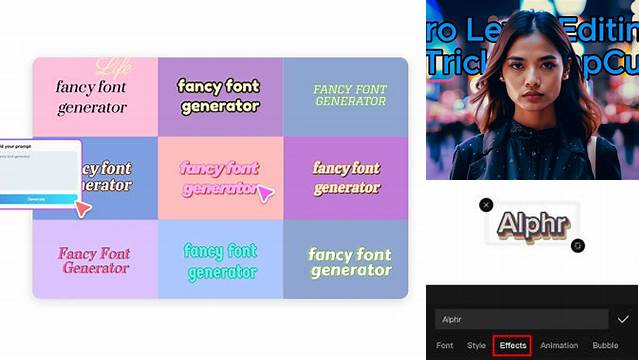
Best Fonts For CapCut: Elevate Your Edits
Hey guys! Ever wondered how some video edits on platforms like TikTok and Instagram Reels just pop? A huge part of it is the fonts they use. Choosing the right font can dramatically elevate your CapCut edits, making them more engaging, professional, and reflective of your unique style. But with so many options out there, how do you pick the perfect font? Don't worry, we've got you covered! This comprehensive guide will dive deep into the world of CapCut fonts, exploring everything from built-in options to external resources, and even offering tips on how to choose the best fonts for your specific video content.
Understanding the Importance of Font Choice in Video Editing
Font choice in video editing is more than just picking something that looks pretty; it's a crucial element of visual communication. The fonts you use can convey emotion, personality, and even the overall tone of your video. Think about it: a playful, handwritten font might be perfect for a vlog about a fun day out, but it would feel completely out of place in a serious documentary. Similarly, a sleek and modern sans-serif font could be ideal for a tech review, while a classic serif font might be better suited for a cinematic short film. Choosing the right font enhances the message you're trying to get across and makes your content more appealing to your audience.
Consider these factors when selecting fonts for your CapCut projects. First, legibility is key. No matter how stylish a font looks, if your viewers can't easily read it, you're doing your video a disservice. Opt for fonts that are clear and easy to read, even on smaller screens. This is especially important for viewers who may be watching on their phones. Second, think about your brand. If you're creating content for a specific brand, make sure your font choices align with the brand's overall aesthetic and identity. Consistency is crucial for brand recognition. For example, if your brand uses bold, modern fonts in its logo and marketing materials, you should incorporate similar styles into your videos. Finally, consider the video's overall tone and theme. Is your video funny, serious, informative, or inspirational? The font you choose should complement and reinforce the message you're conveying. A horror video, for example, might benefit from a creepy, distressed font, while a motivational video could use a clean and uplifting typeface. By paying close attention to these factors, you can ensure that your font choices enhance, rather than detract from, your video's overall impact.
Exploring CapCut's Built-In Font Library
CapCut boasts a robust built-in font library, offering a diverse range of options to suit various video styles and aesthetics. This is often the best place to start when looking for fonts, as these options are readily available and guaranteed to work seamlessly within the app. You'll find everything from classic serif and sans-serif fonts to more decorative and script-style typefaces. This variety makes it easy to find something that fits the specific mood and message of your video. The CapCut library is regularly updated, so you'll often find new fonts added to the collection, keeping your options fresh and inspiring. Exploring the built-in fonts is a great way to discover new favorites and develop your typographic eye.
Within CapCut's font library, you'll discover a wide array of styles. Sans-serif fonts, known for their clean and minimalist look, are excellent choices for modern videos, tutorials, and vlogs. Arial and Montserrat are classic examples. Their simplicity ensures readability, making them suitable for captions and on-screen text that needs to be clear and concise. Serif fonts, with their small decorative strokes, often evoke a sense of tradition and sophistication. Times New Roman is a well-known serif font, suitable for more formal content. Serif fonts can add a touch of elegance and are particularly effective in cinematic videos or videos with a historical theme. Additionally, CapCut offers a selection of script and handwritten fonts, which add a personal and creative touch. These are great for lifestyle content, DIY tutorials, or any video where you want to convey a friendly and approachable vibe. However, use these fonts sparingly and ensure they remain legible, as overly elaborate scripts can be difficult to read on smaller screens. In short, the CapCut built-in font library provides a strong foundation for your video typography needs, giving you a wide range of options to experiment with and tailor to your specific creative vision.
How to Add and Use Custom Fonts in CapCut
While CapCut's built-in fonts offer a great starting point, sometimes you need a specific font to truly capture your vision or match your brand identity. Good news! CapCut allows you to add and use custom fonts, expanding your creative possibilities significantly. This flexibility enables you to incorporate unique typefaces downloaded from external sources, giving your videos a distinctive and personalized touch. Adding custom fonts to CapCut is a straightforward process, and it's a game-changer for those who want to stand out from the crowd.
Top Font Recommendations for Various Video Styles
Choosing the right font can feel overwhelming, especially with so many options available. To help you narrow it down, let's explore some top font recommendations for various video styles. Whether you're creating vlogs, tutorials, cinematic shorts, or social media content, these suggestions will provide a solid starting point for your font selection. Remember, the best font for your video will depend on the specific content, tone, and target audience, so feel free to experiment and find what works best for you.
For vlogs and casual content, opt for fonts that are friendly, approachable, and easy to read. Sans-serif fonts like Montserrat, Open Sans, and Lato work well due to their clean and modern aesthetic. These fonts are legible on smaller screens and convey a sense of simplicity and clarity. If you want to add a personal touch, consider using a handwritten or script font, but use it sparingly for headings or accents rather than large blocks of text. For tutorials and educational videos, readability is paramount. Stick to clear and concise fonts like Roboto, Helvetica Neue, and Arial. These fonts ensure that your viewers can easily follow along with your instructions without being distracted by overly decorative typefaces. Use bold or italic styles to emphasize key points or steps in your tutorial. When it comes to cinematic videos and short films, you have more room to play with font styles. Serif fonts like Playfair Display and Garamond can add a touch of elegance and sophistication, making your video feel more polished and professional. Consider the overall tone of your film when choosing a font; a horror film might benefit from a distressed or gothic-style font, while a romantic drama might pair well with a flowing script font. For social media content like TikToks and Instagram Reels, you need fonts that grab attention quickly. Bold sans-serif fonts like Bebas Neue and Impact are popular choices for their high visibility and impactful presence. These fonts work well for short captions, text overlays, and calls to action. However, be mindful of readability on small screens and avoid using overly complex fonts that may get lost in the fast-paced nature of social media. By considering these recommendations and adapting them to your specific video needs, you can select fonts that enhance your content and resonate with your audience.
Tips for Effective Font Pairing and Typography in CapCut
Effective font pairing and typography are essential for creating visually appealing and professional-looking videos in CapCut. Using the right combination of fonts can significantly enhance the overall aesthetic and readability of your content. However, choosing fonts that complement each other can be tricky, so here are some tips to help you master the art of typography in your video edits. By following these guidelines, you can create text overlays, captions, and titles that are not only visually striking but also contribute to the overall message and impact of your video.
From exploring CapCut's built-in font library to importing custom fonts, you have a wide range of options at your fingertips. Take the time to experiment with different font styles and sizes to find what works best for your content. Consider the tone and theme of your video, your brand identity, and the overall message you want to convey. Pay attention to legibility and ensure that your text is easy to read on various devices and screen sizes. Effective font pairing is another key aspect of mastering typography. Combine fonts with contrasting styles to create visual interest and establish a clear hierarchy in your text. Limit the number of fonts you use in a single video to maintain a cohesive and professional look. And don't forget to explore the numerous resources available for finding both free and premium fonts. Websites like Google Fonts, DaFont, Adobe Fonts, and MyFonts offer a vast selection of typefaces to suit every style and budget. By continuously learning and experimenting with fonts, you'll develop a keen eye for typography and be able to make informed decisions that enhance your videos. So go ahead, dive into the world of fonts, and unleash your creative potential in CapCut! Your videos will thank you for it.